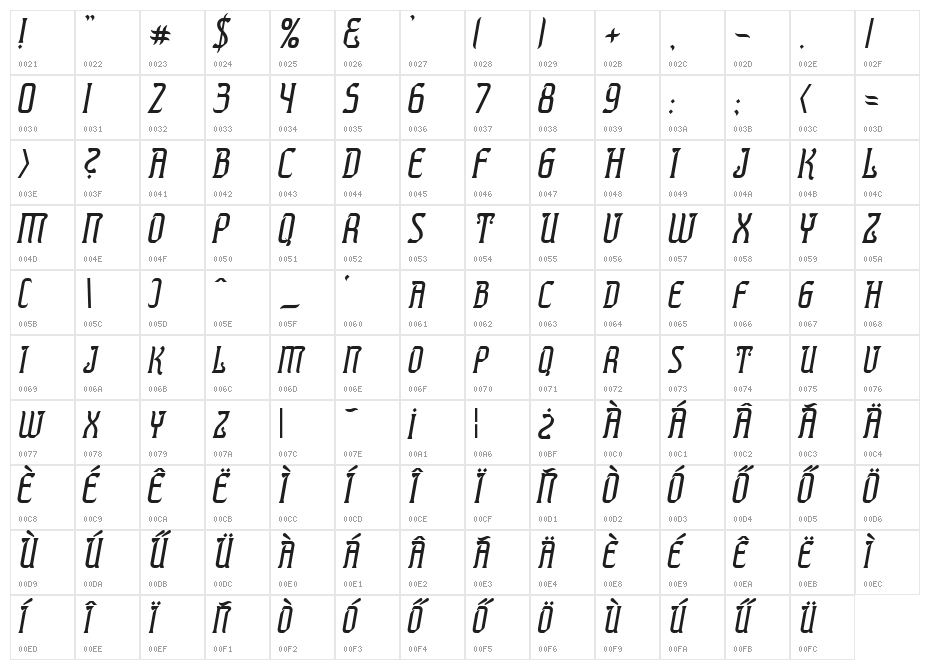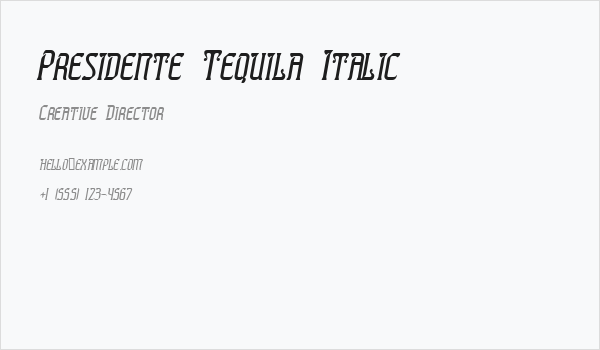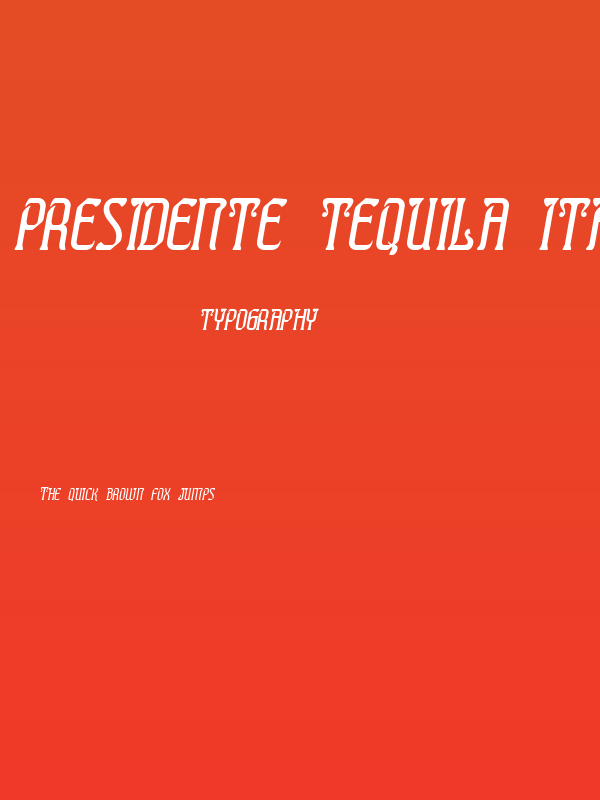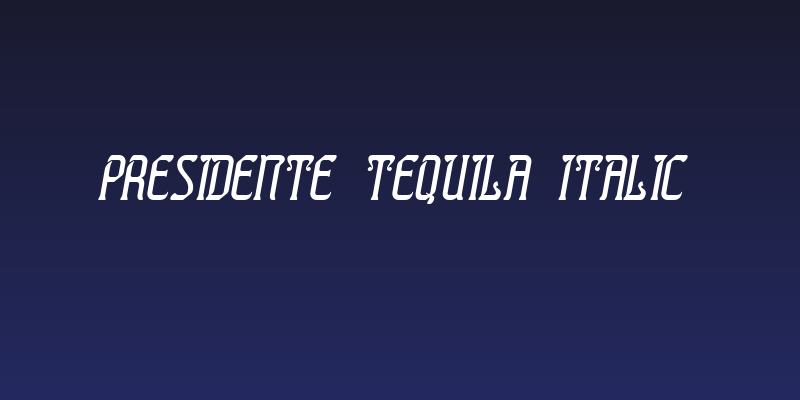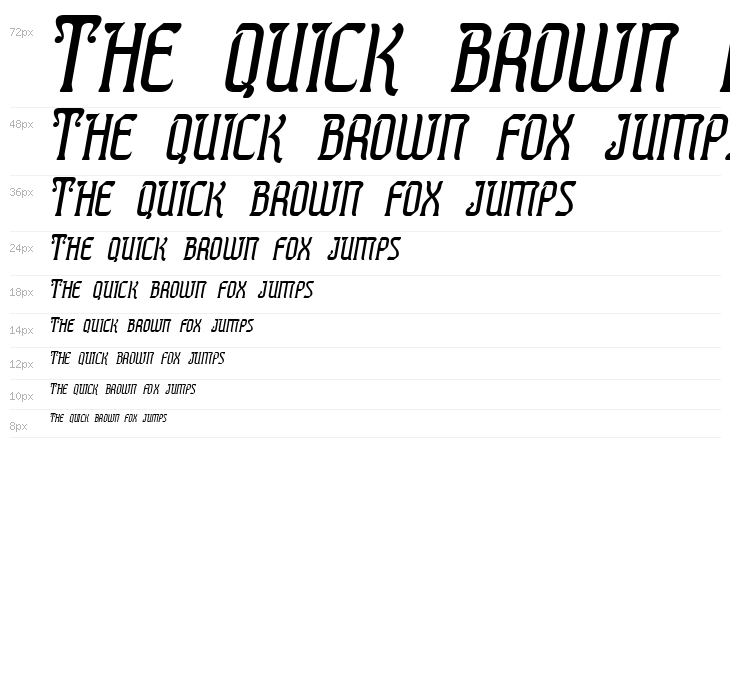
Presidente Tequila Italic Font
Presidente Tequila Italic Description
This font features a dynamic and energetic style with a distinct italic slant, giving it a sense of motion and fluidity. The characters are bold and slightly condensed, with sharp angles and clean lines that create a modern and edgy appearance. The uppercase and lowercase letters maintain a consistent design, while the numerals and special characters complement the overall aesthetic. The font's unique style makes it suitable for projects that require a strong visual impact, such as branding, advertising, and packaging design.
| Proposed Projects | Ideal for branding, advertising, packaging design, and any project needing a strong visual impact. |